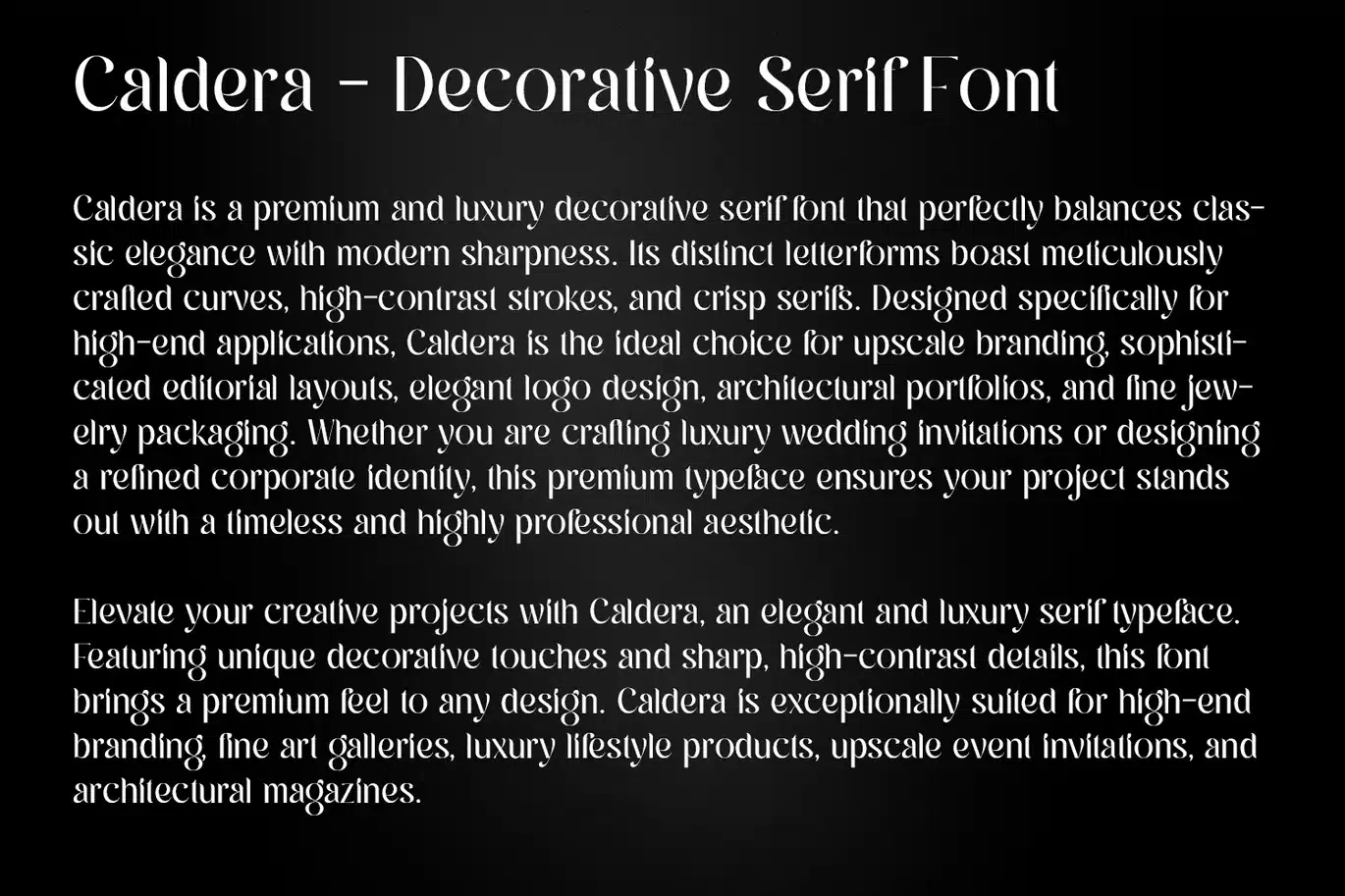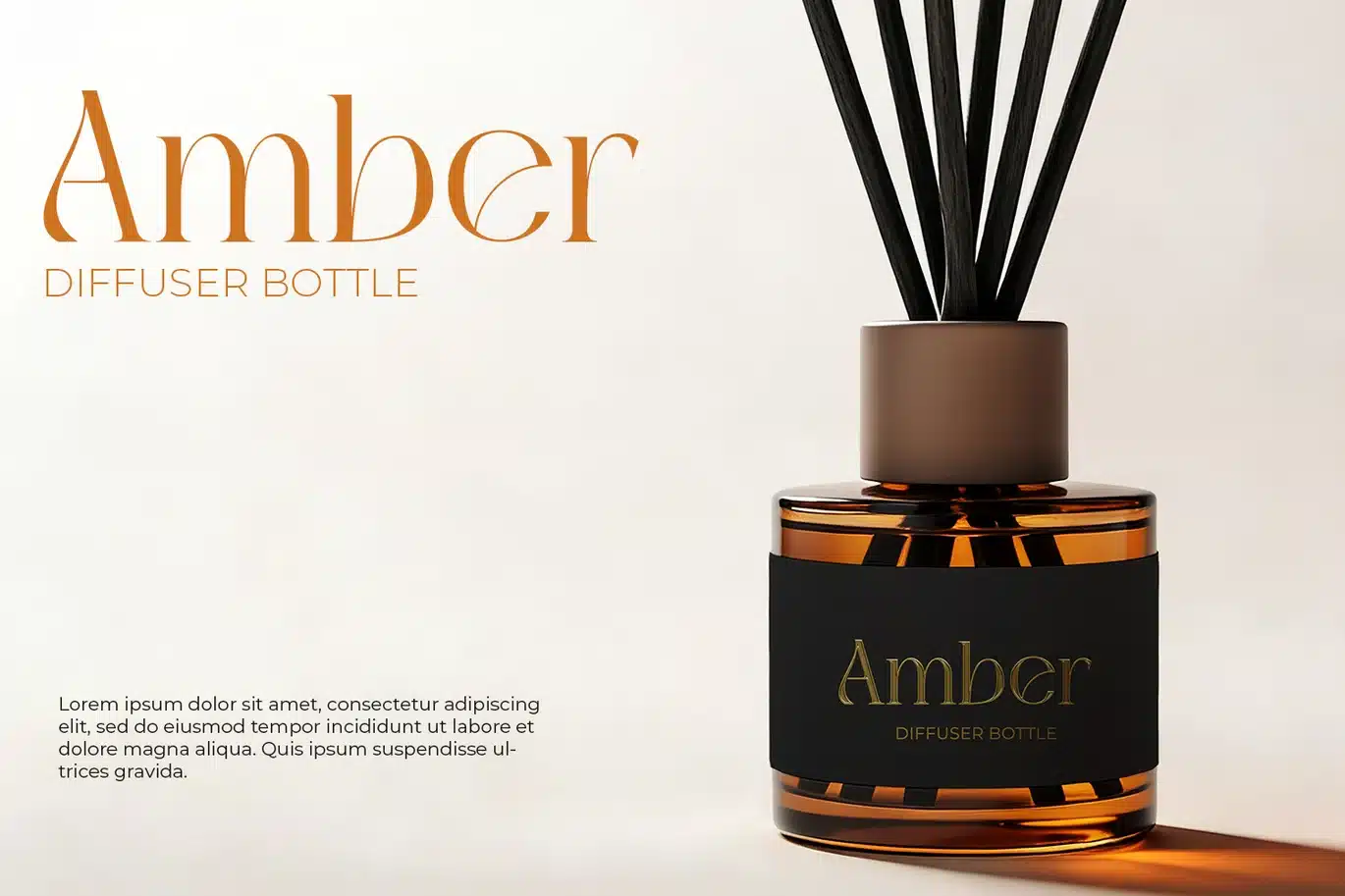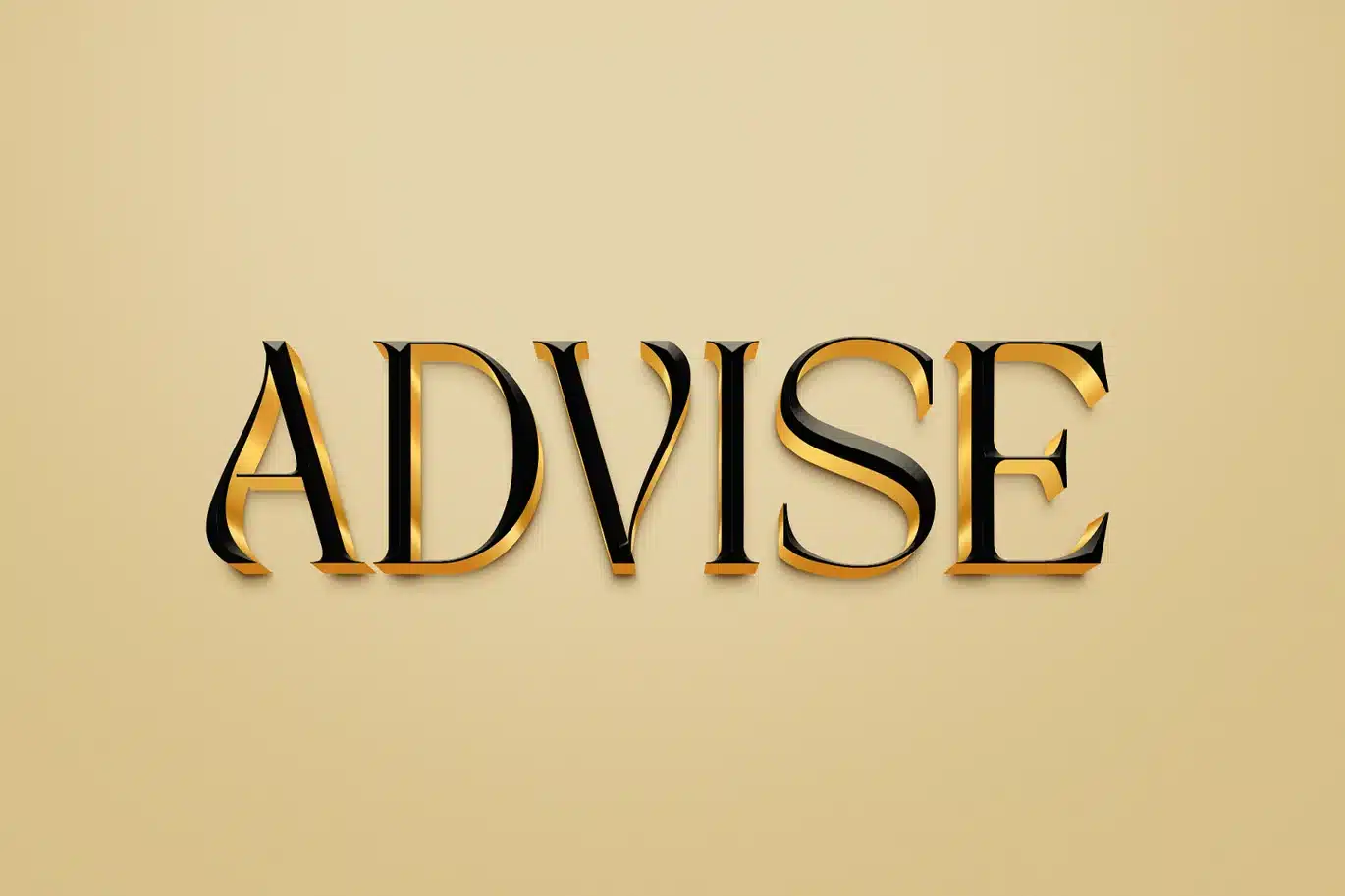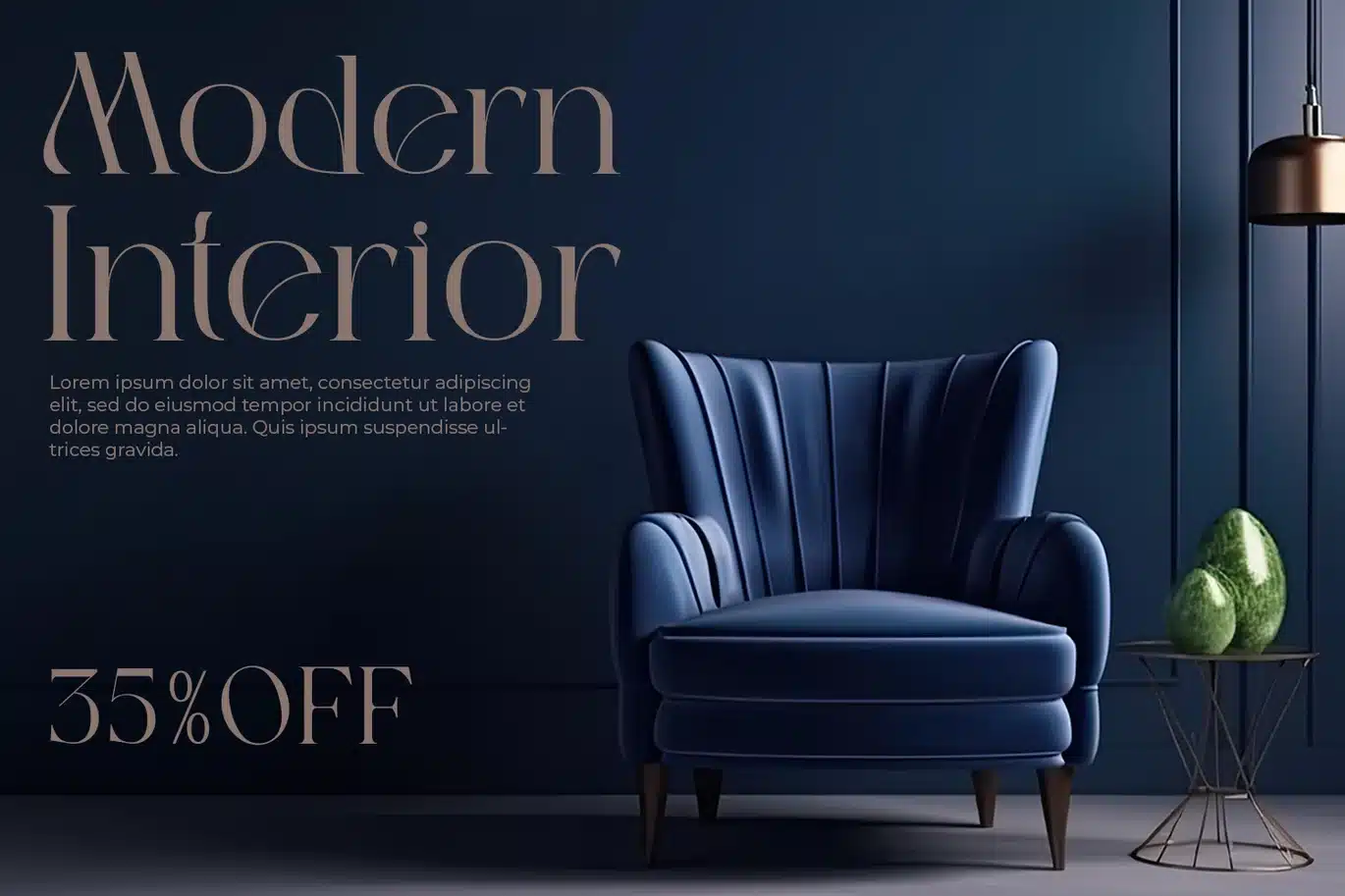
Caldera – Decorative Serif Font
Caldera - High Contrast Serif Typeface
Caldera is a premium and luxury decorative serif font featuring sharp details and high-contrast strokes. This elegant typeface is meticulously crafted for high-end branding, architectural portfolios, fine jewelry packaging, upscale wedding invitations, and editorial layouts. It brings a sophisticated and timeless aesthetic to any professional design project, perfectly balancing classic curves with modern sharpness to elevate your creative work.
- Unique letterforms